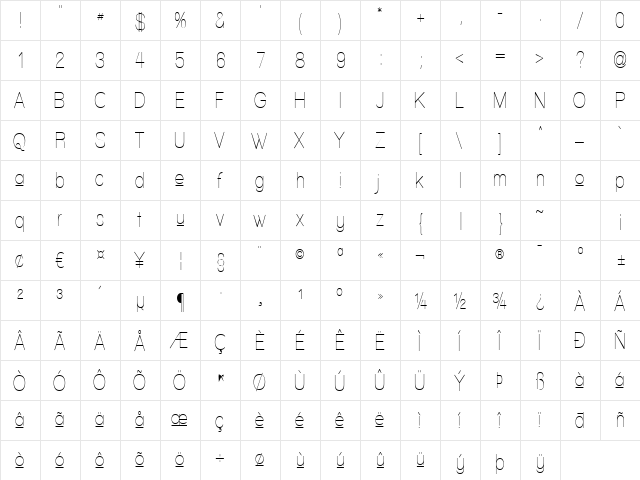
Walkway Upper Condensed Regular
Design Context for Walkway Upper Condensed Typeface
Walkway Upper Condensed takes a measured approach to typography — its balanced proportions and neutral character make it a reliable workhorse for both digital and print work. Its narrow stance lets it pack a punch even in space-constrained designs.